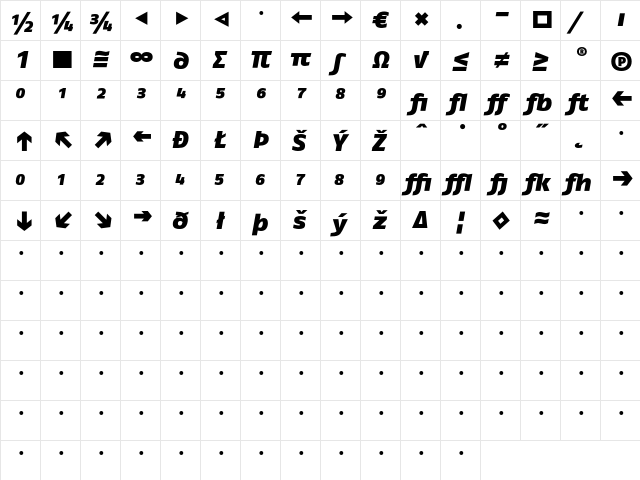
FagoEx BlackItalicExp
Design Context for FagoEx Typeface
FagoEx offers clean, dependable letterforms without strong stylistic allegiance, making it a practical choice for designers who need flexibility. The dynamic lean of this cut emphasises speed and emphasis in any layout.
Pro Tip: Try FagoEx for annotation and caption copy alongside an upright companion — the contrast in angle creates a dynamic but ordered typographic system.